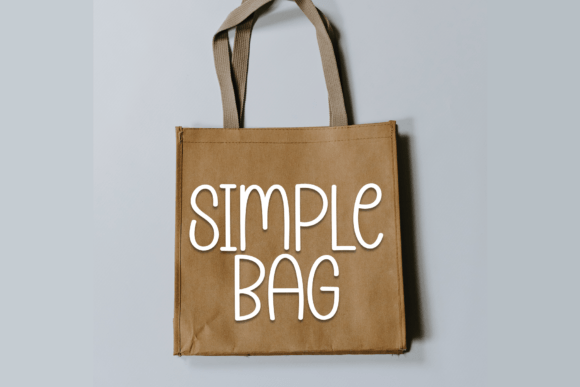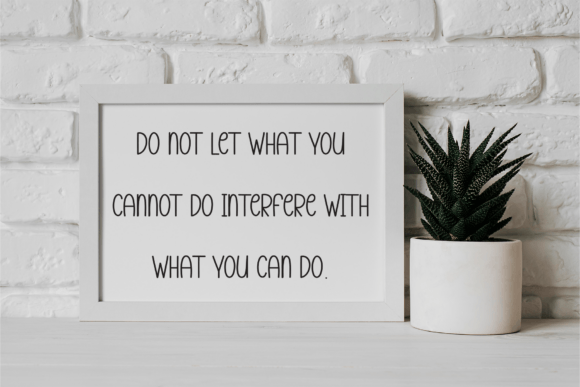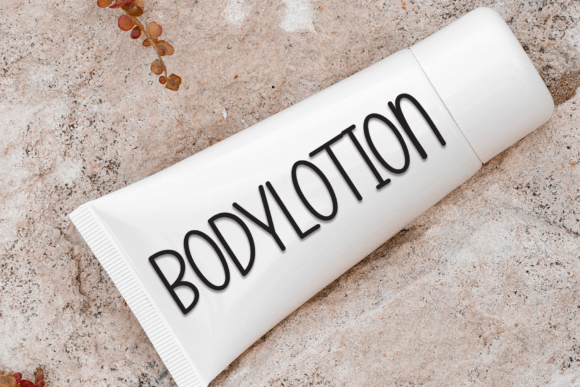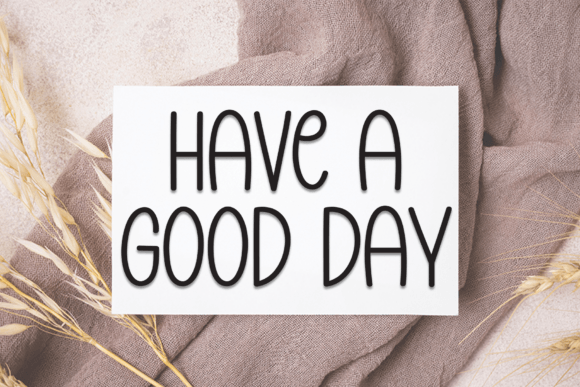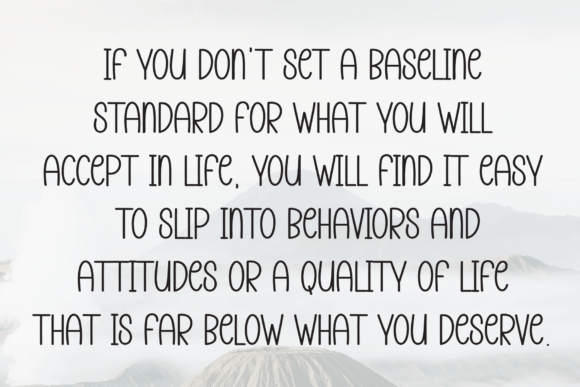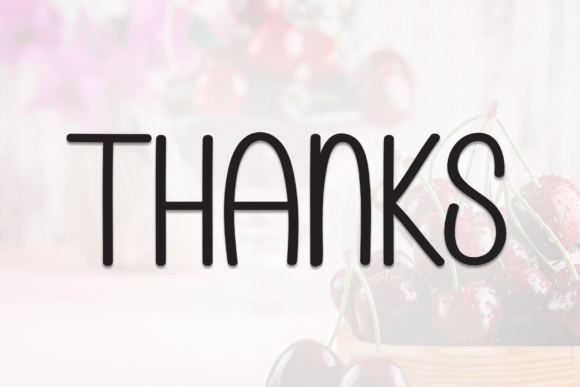
Introduction to Cherry Pick Font
Introducing a charming and endearing handwritten display font that exudes sweetness and friendliness.
Enriched with a delightful sense of fun, this font has been meticulously crafted for those looking to infuse their design work with a jovial sparkle From wedding invitations to greeting cards, this font will infuse every artful design with a playful twist, making it an irresistible aesthetic choice for projects that require a sprinkle of fun.
Key Features of Cherry Pick Font